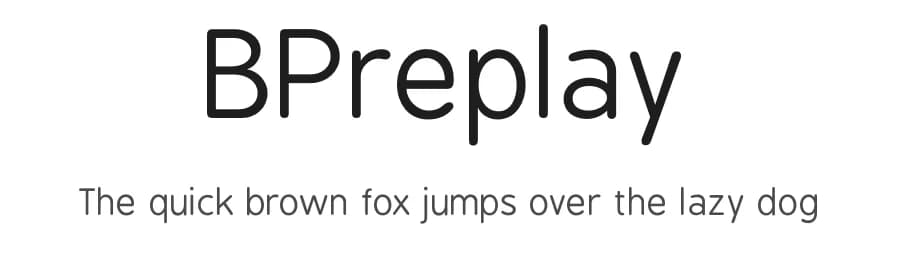
About BPreplay Font
BPreplay is a sans-serif font designed by George Triantafyllakos. It includes 300 glyphs, a regular weight, OTF (CFF) format, and 107 languages. BPreplay is free to download; check the license details on this page before commercial use. Sans-serif fonts like BPreplay work best for clean body text, user interfaces, branding, and modern layouts.
BPreplay Font is a versatile sans-serif font that works for both headings and body text. Pair it with a contrasting serif or slab serif font to add visual interest and a clear distinction between titles and body copy.
BPreplay Font
BPreplay Font is a sans serif typeface by George Triantafyllakos, ideal for logos, invitations, branding, and creative projects.